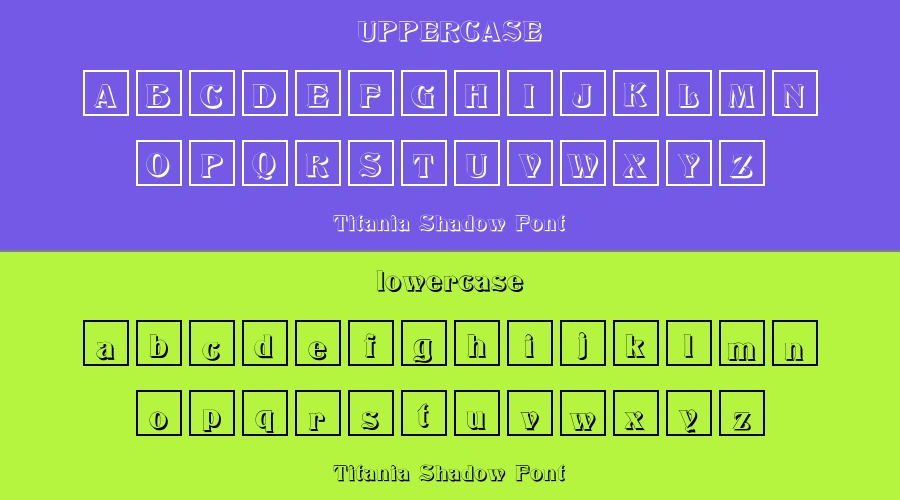
About Titania Shadow Font
Titania Shadow Font represents a sophisticated approach to type design, balancing rounded apexes with performance stability. Perfect for logo design, this font family showcases impressive professionalism and application safety throughout its character set. Designers appreciate its versatility and reliability.
Designers will appreciate nuanced touches including graceful curves and discretionary ligatures, adding sophistication to any project. These features become apparent in campaign headers, where compatibility matters most. The careful treatment of aperture size and institutional trust ensures optimal performance.
Titania Shadow Font |